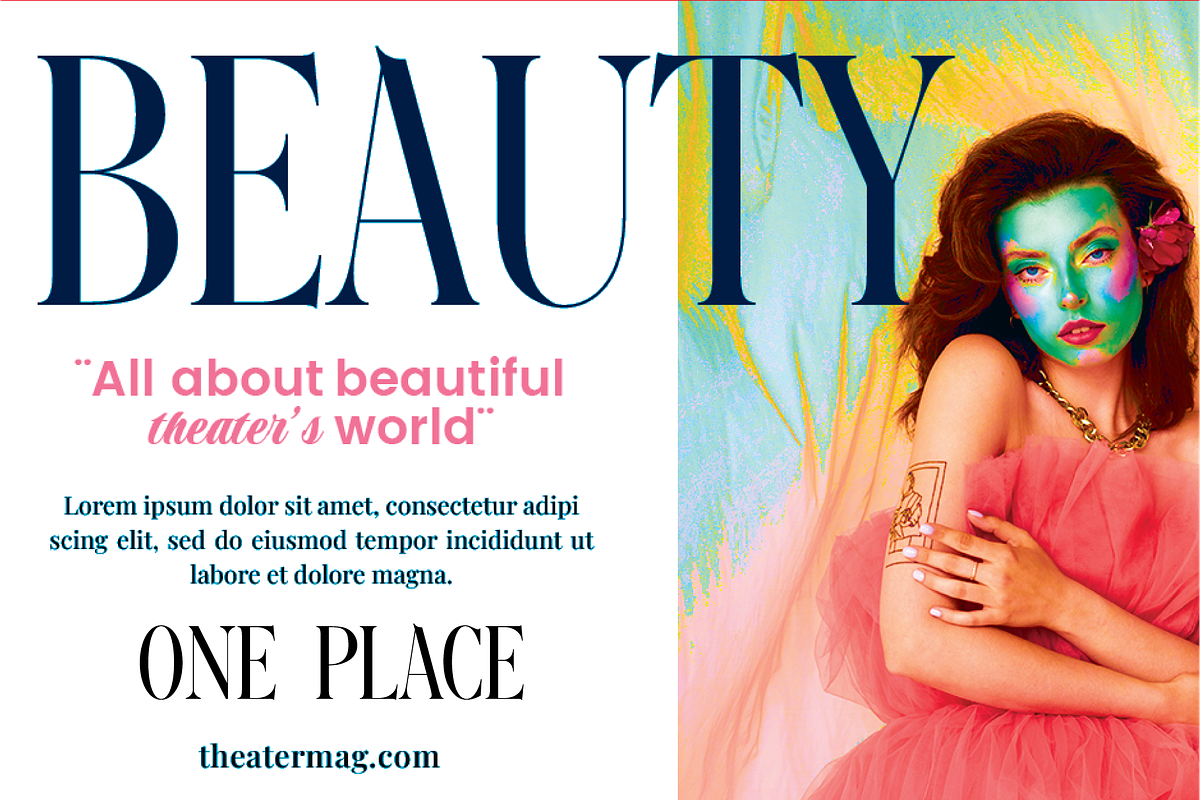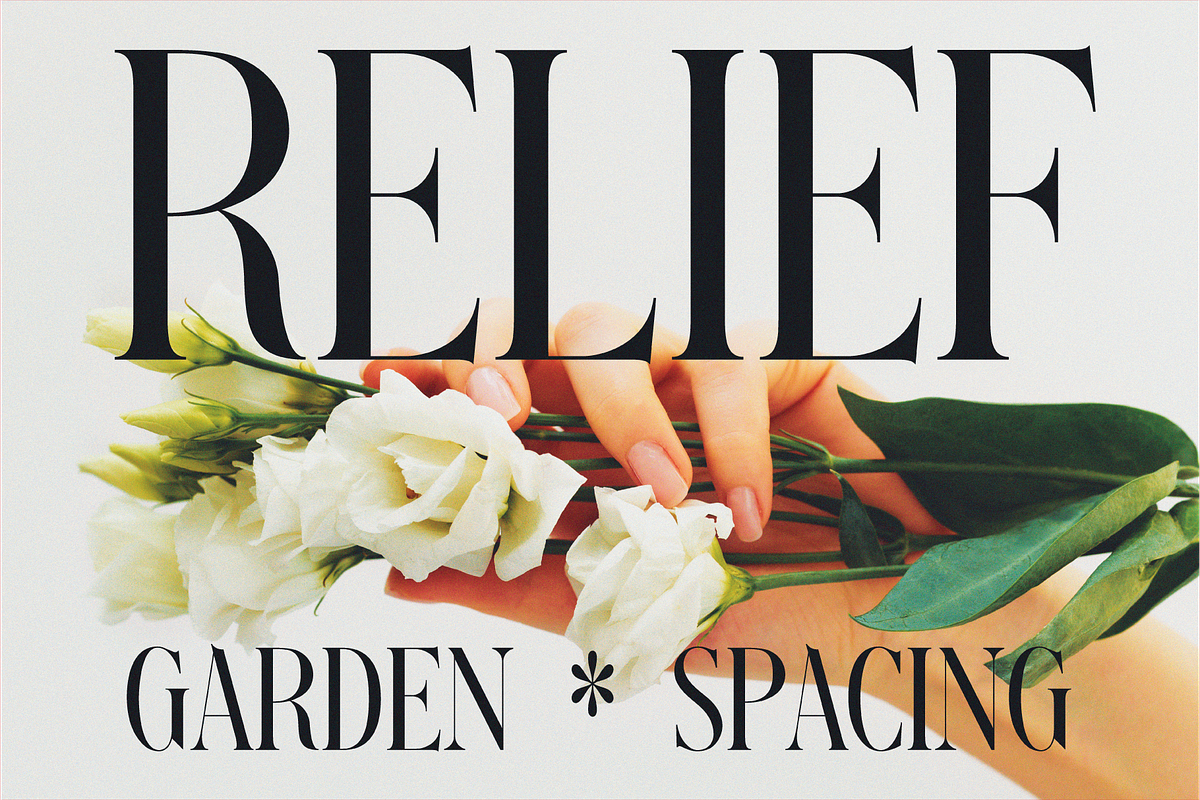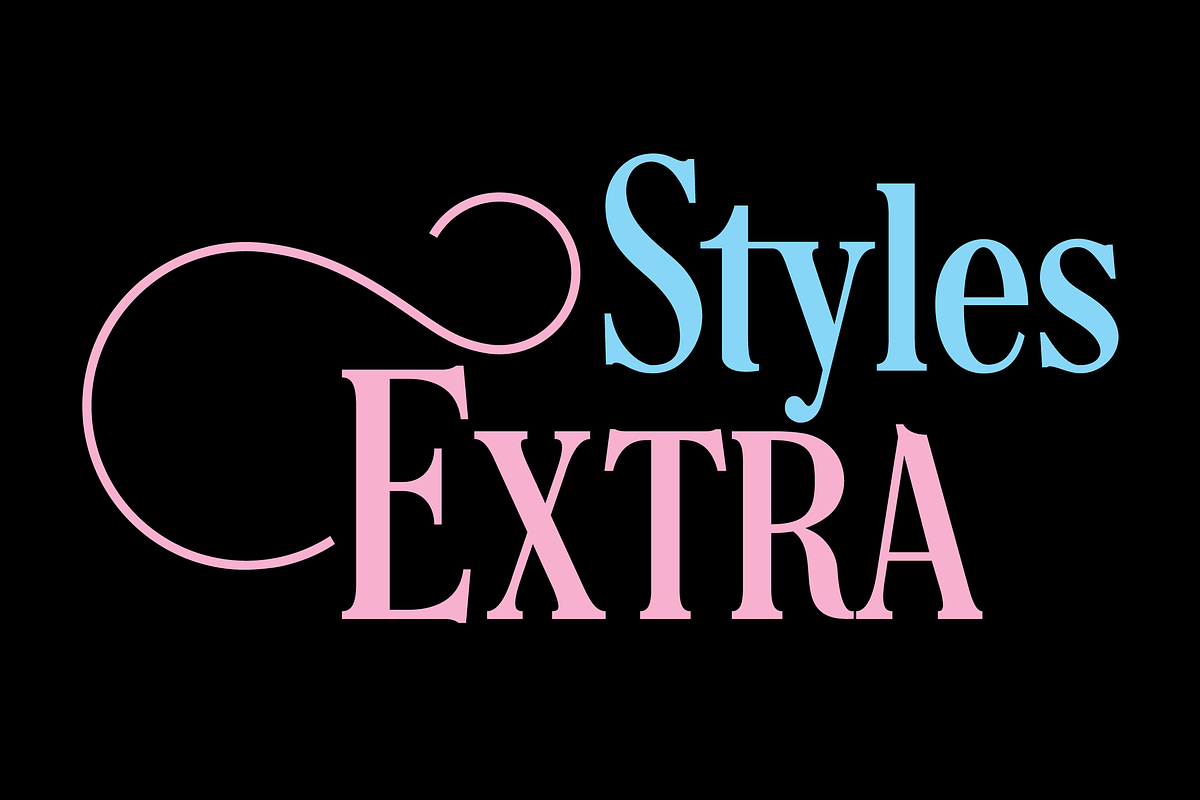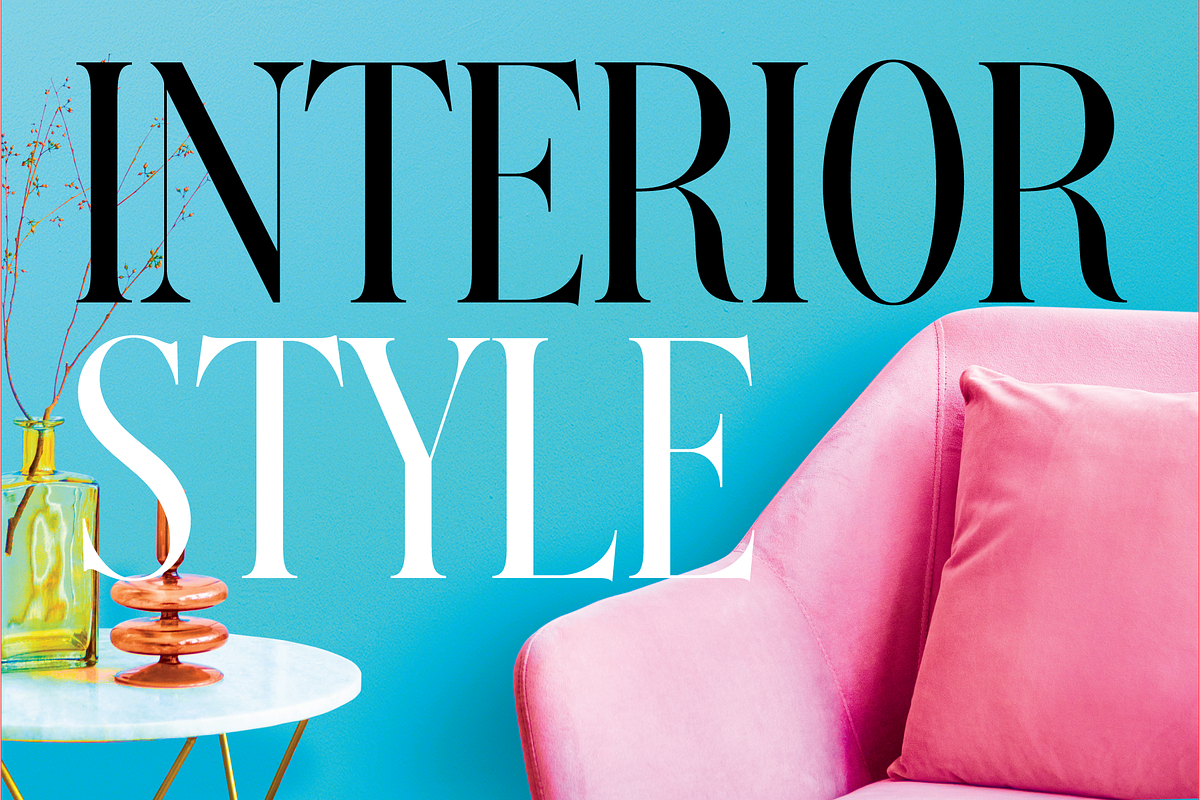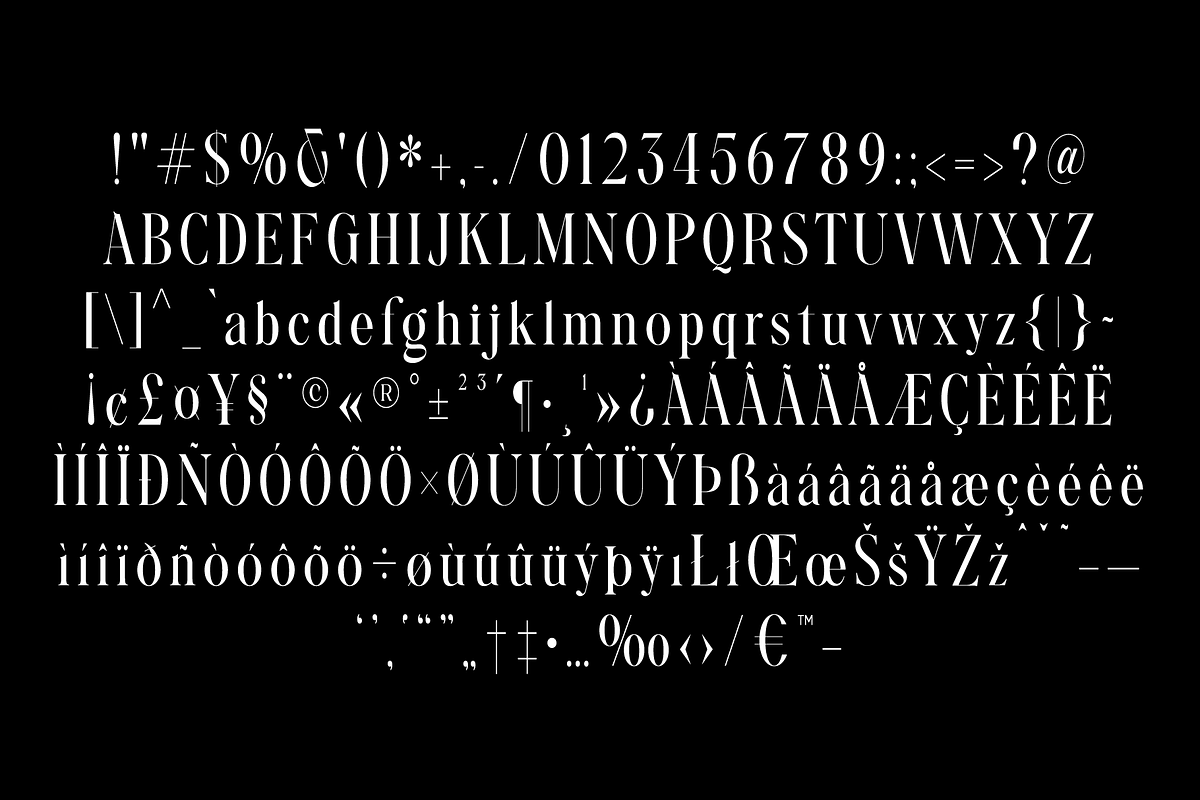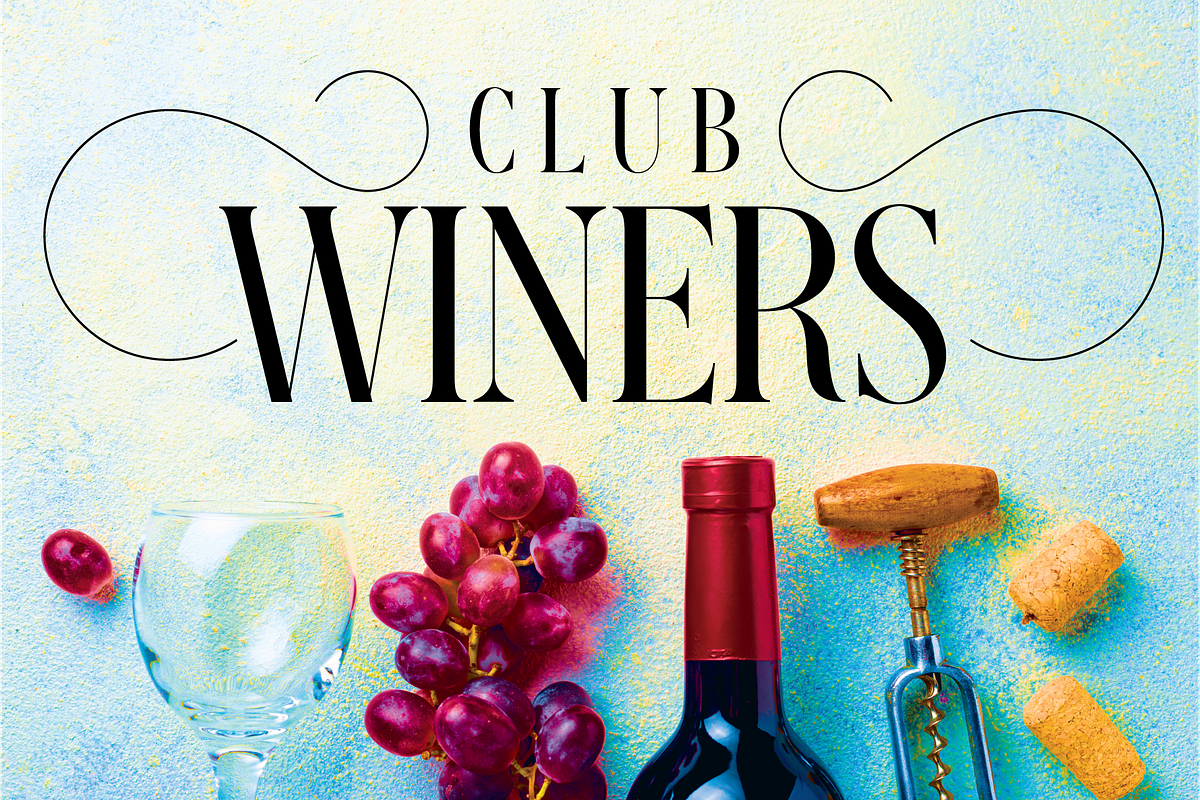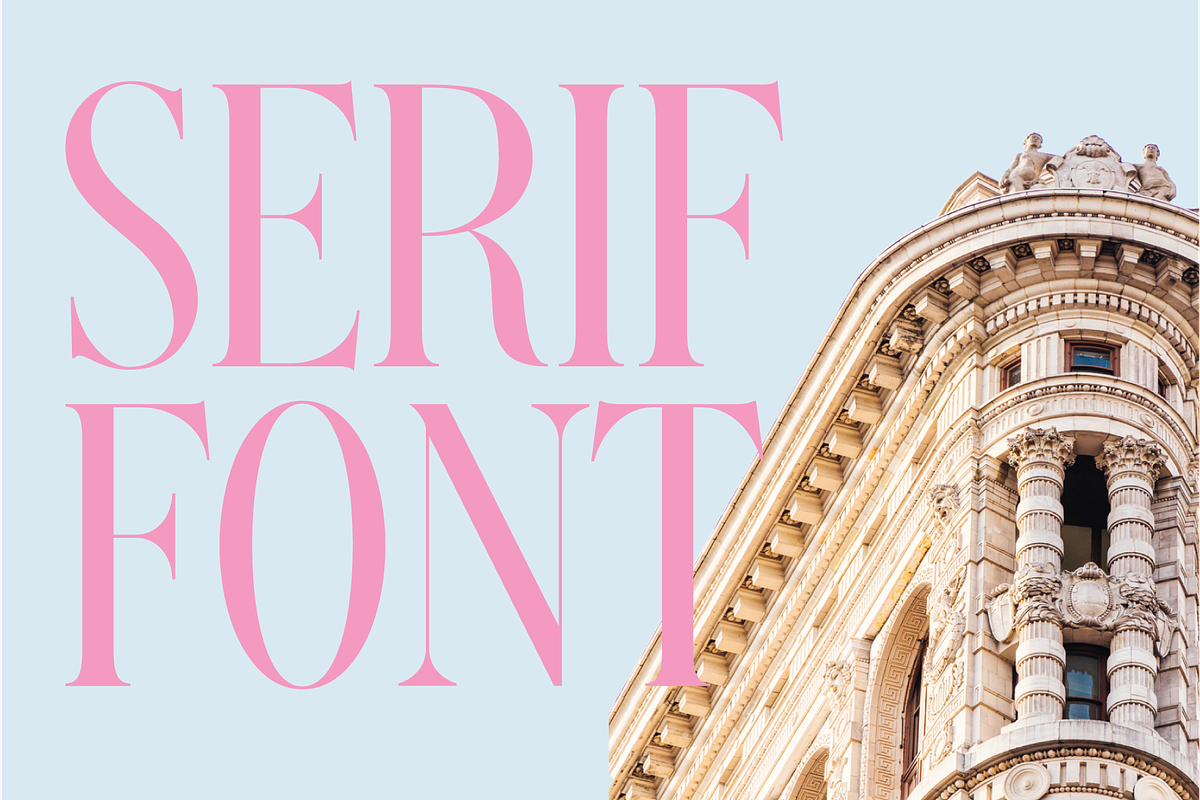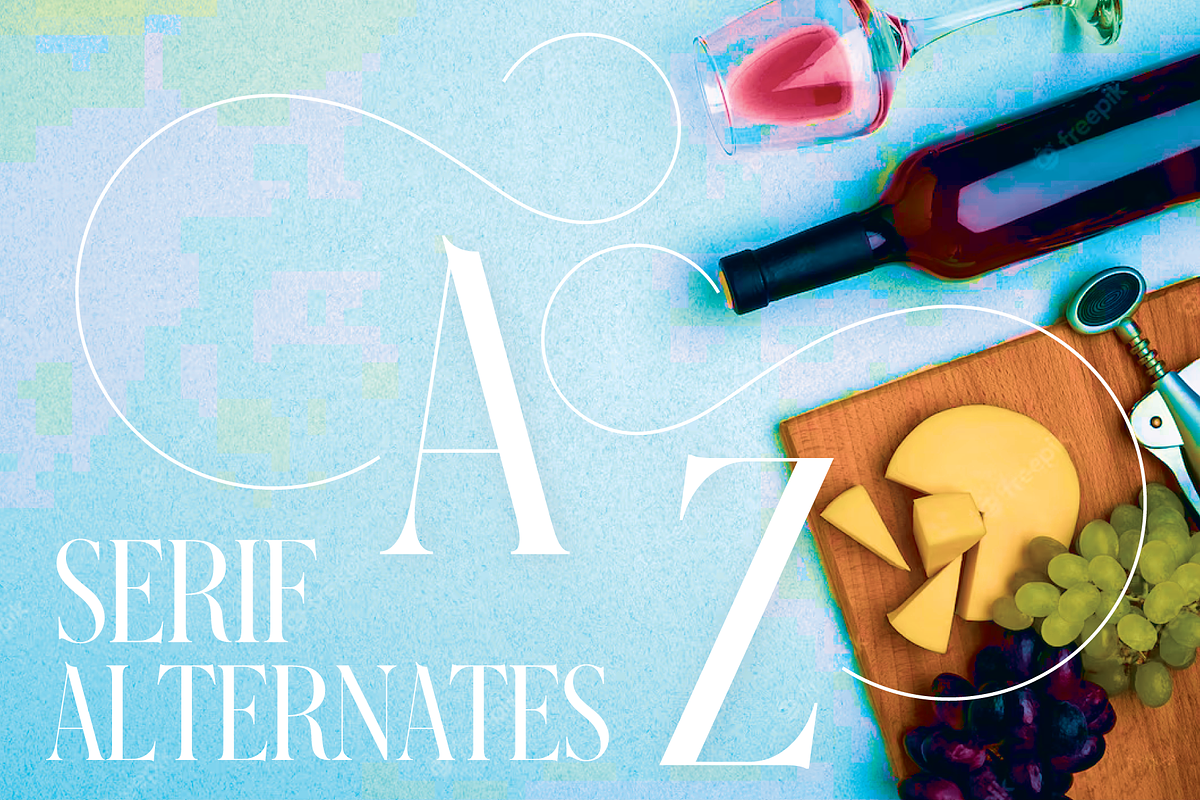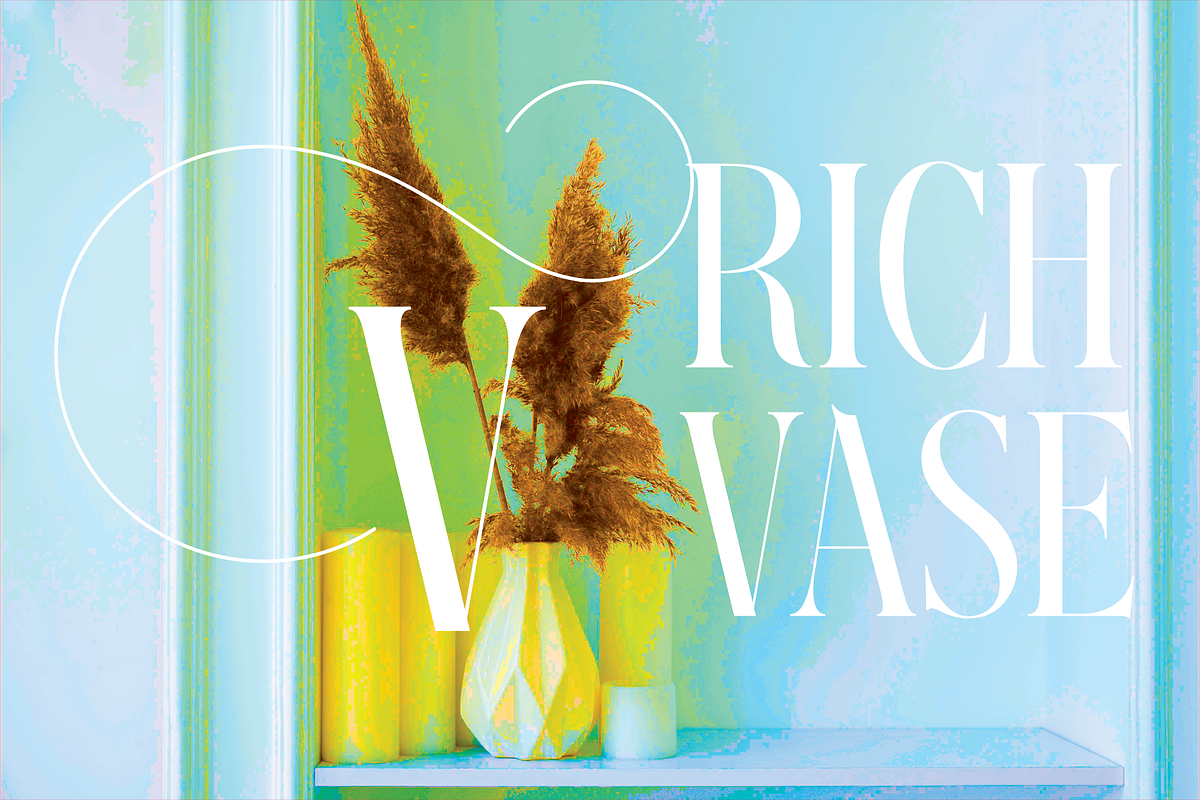
Club Winers font
Elevate your designs with Club Winers, a captivating serif font that exudes sophistication, richness, and luxury. With its elegant and timeless appeal, Club Winers is the perfect choice for those seeking a touch of refined beauty in their typographic creations.
Experience the beauty of Club Winers and let its sophisticated charm transform your design projects into works of art.
All CAPS letters have alternates.